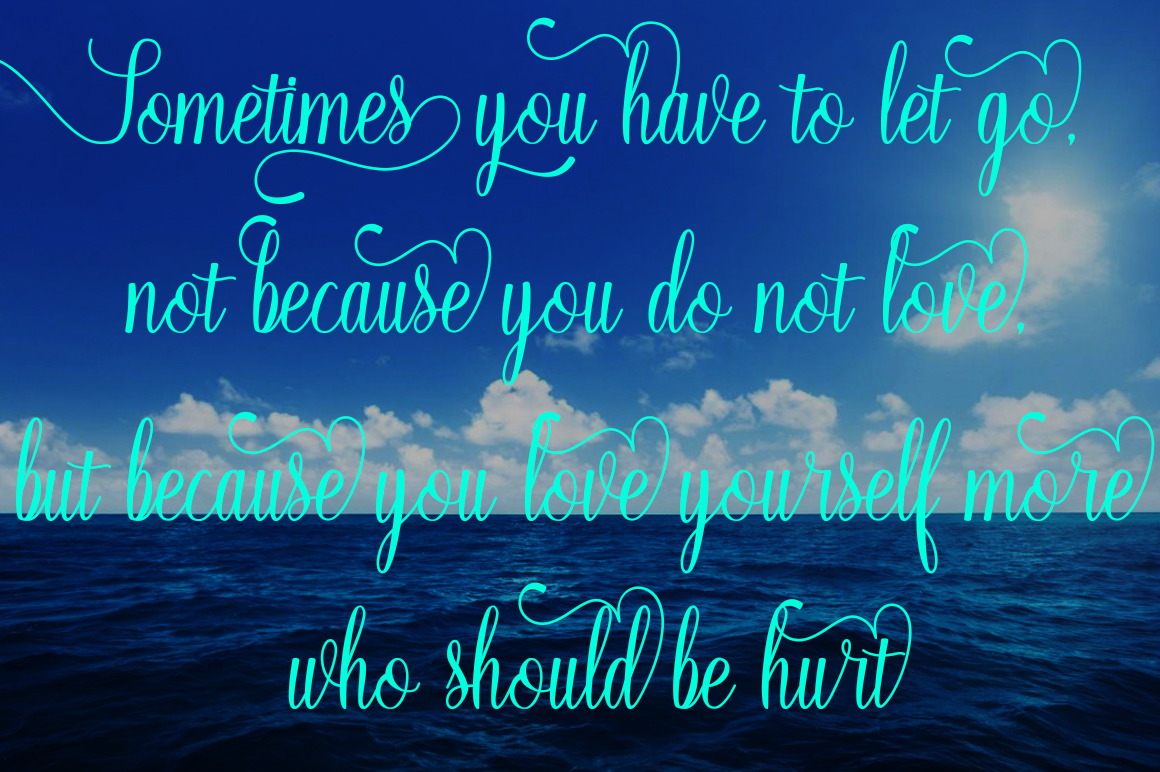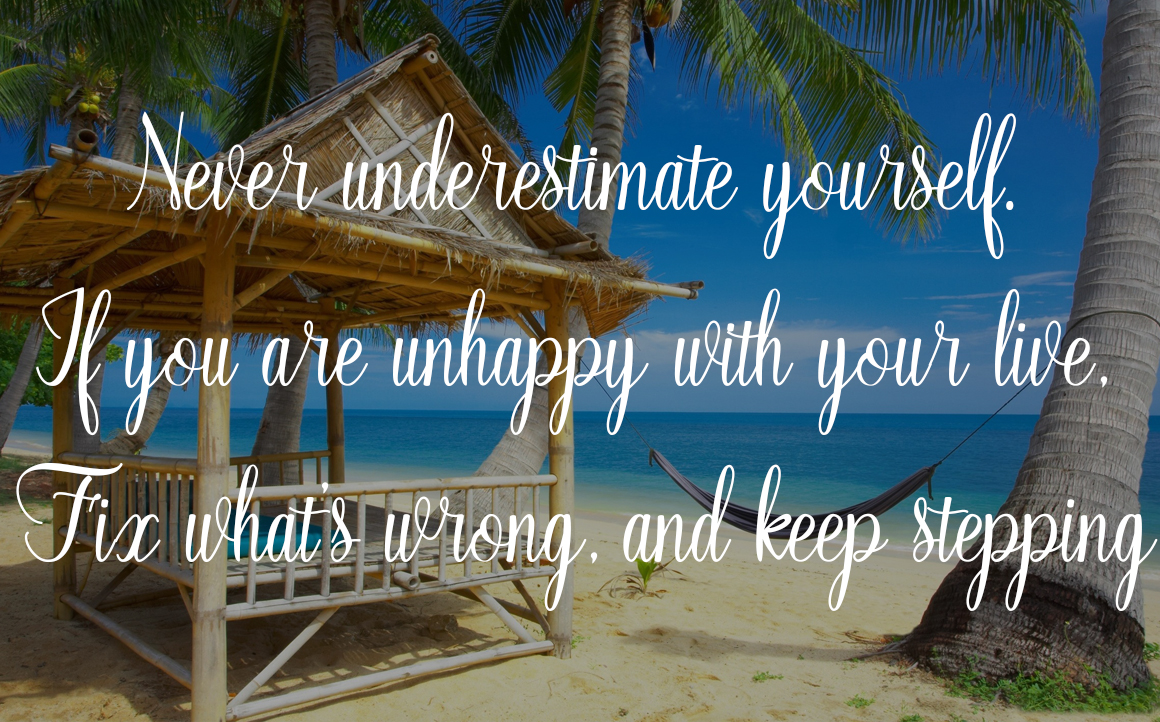
Fayalong Script Font
About Fayalong Script Font
Fayalong is an extremely delicate and flourished script. The unique forms of this calligraphy are perfect for projects that necessitate an added elegant touch.
There are countless ways to incorporate Fayalong into your designs, an apt script for making your projects feel more natural and handcrafted.